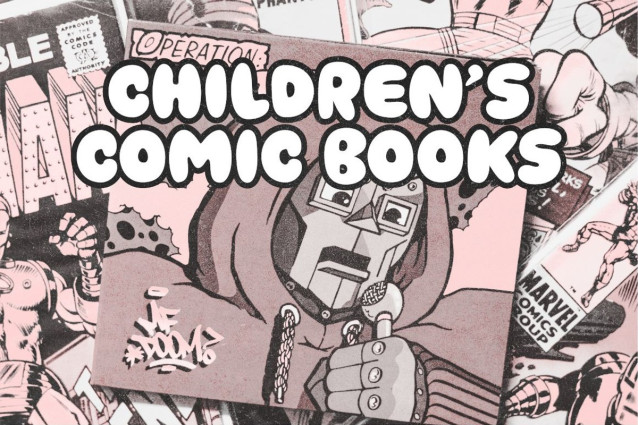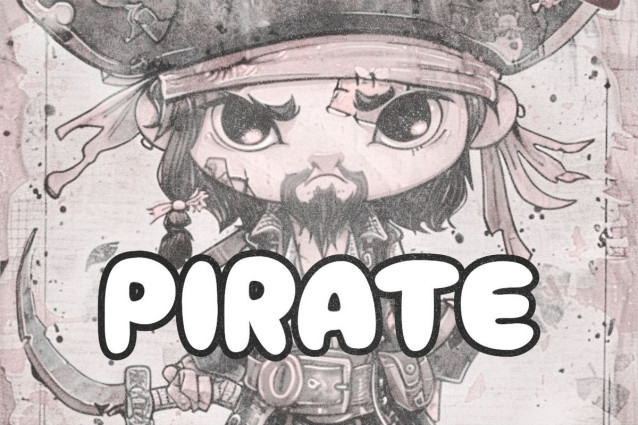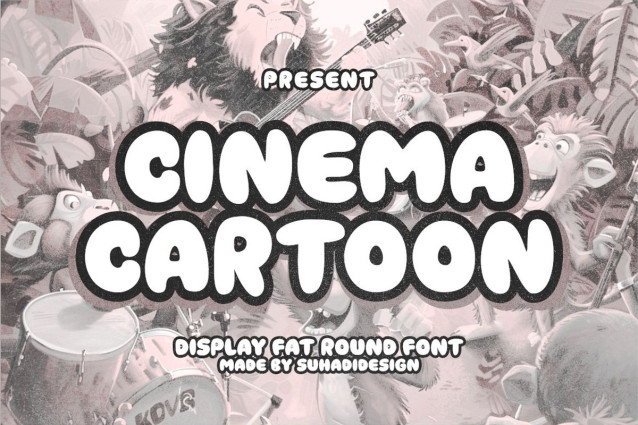
Cinema Cartoon Font
Cinema Cartoon font is a round, fat display font. designed to be a favorite in the market. We made this font look cool, classy, ​​modern, stylish, attractive and fun. CinemaCartoon font is a great choice for kids, babies, children’s movies, cartoons, comics, accessories, bags, candy or gum brands, food, beverage labels and other projects. CinemaCartoon font is designed to improve the quality of your designs.